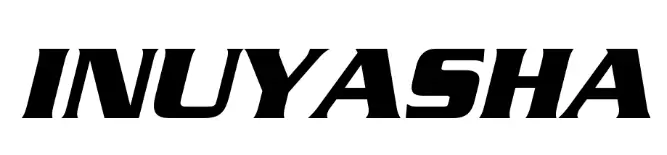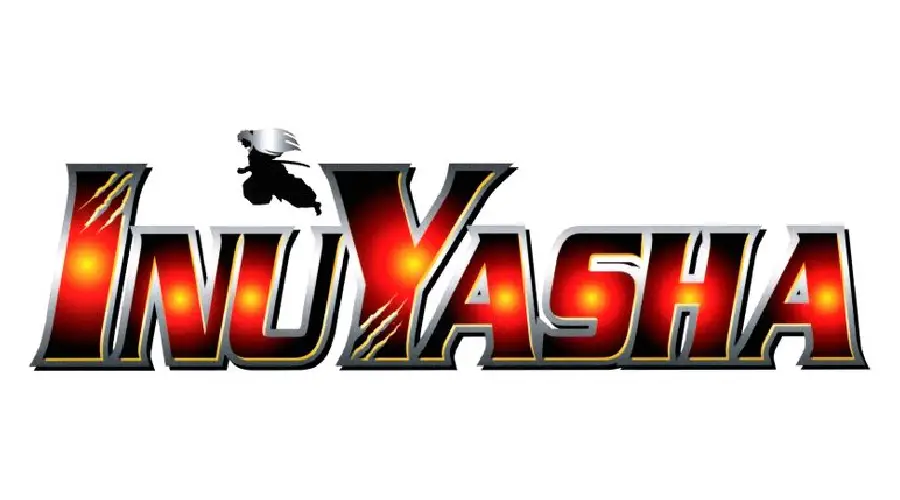
The Inuyasha Font is a distinctive typeface inspired by the popular anime and manga series Inuyasha. This font is often associated with the show’s branding and logo, making it a favorite among fans and designers looking to recreate the series’ iconic aesthetic. While there isn’t an official Inuyasha font, the style is closely replicated by other fonts, particularly Serpentine Bold Oblique by Dick Jensen, which is widely recognized as the font used in the Inuyasha logo.
Serpentine Bold Oblique by Dick Jensen – This is the closest match to the Inuyasha logo font.